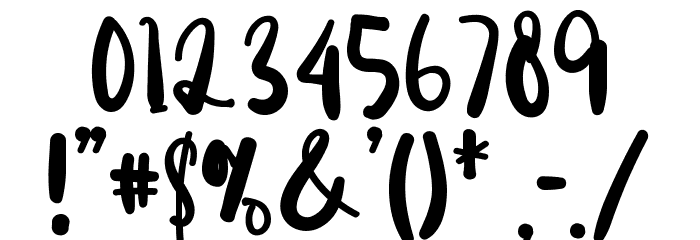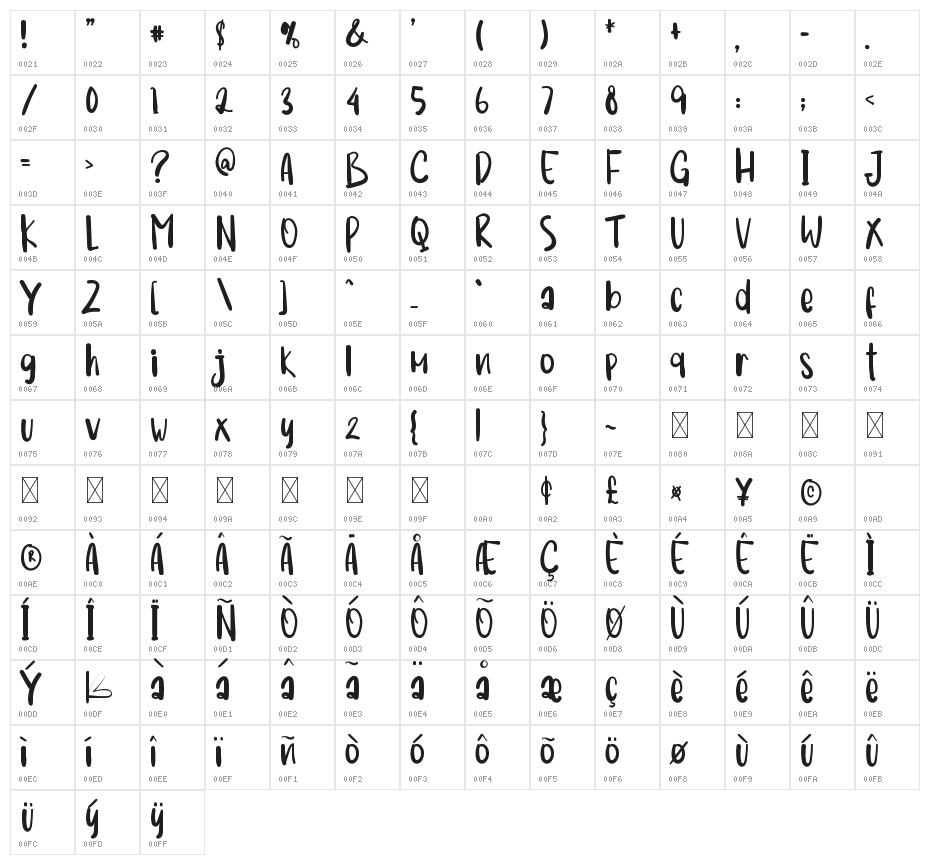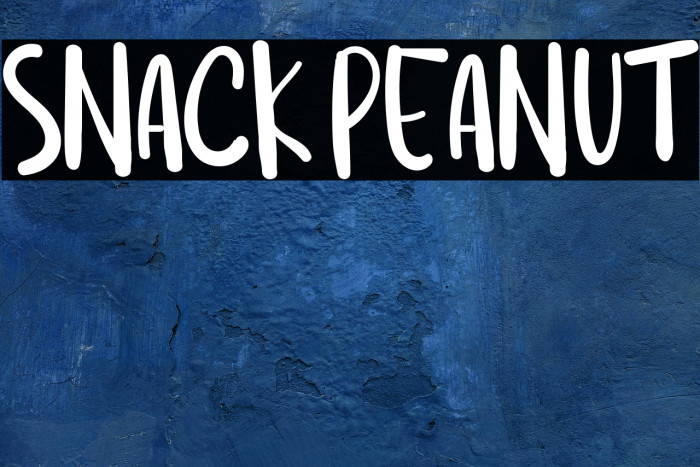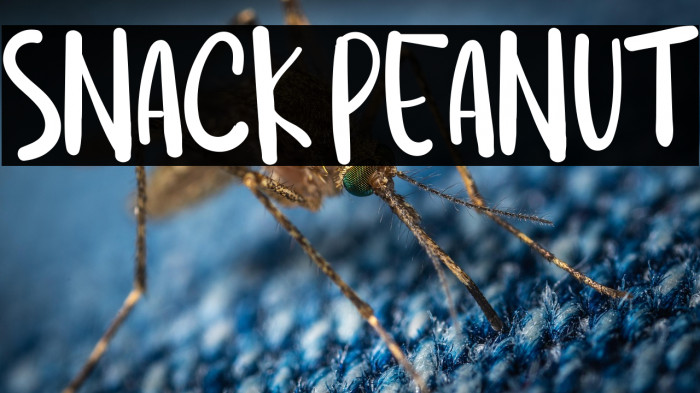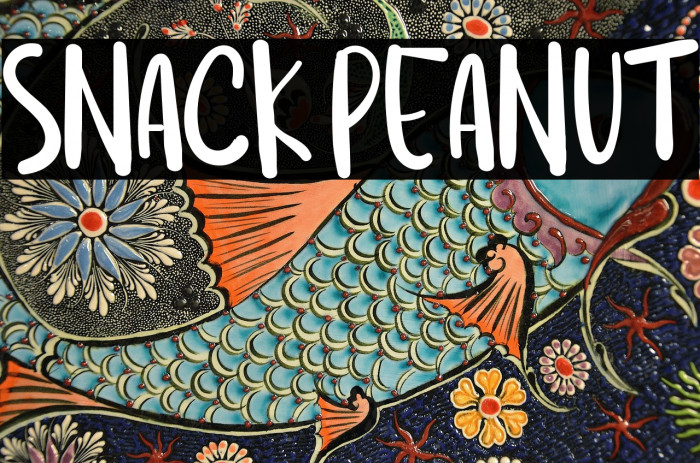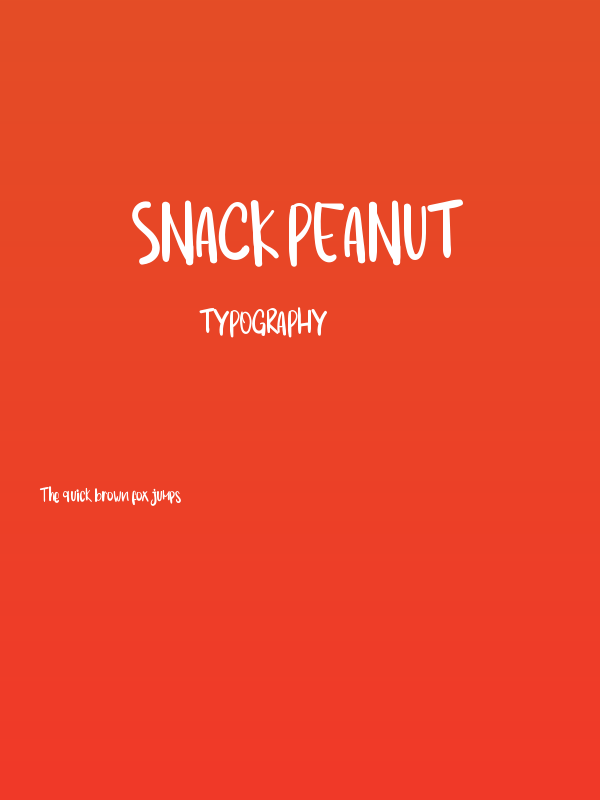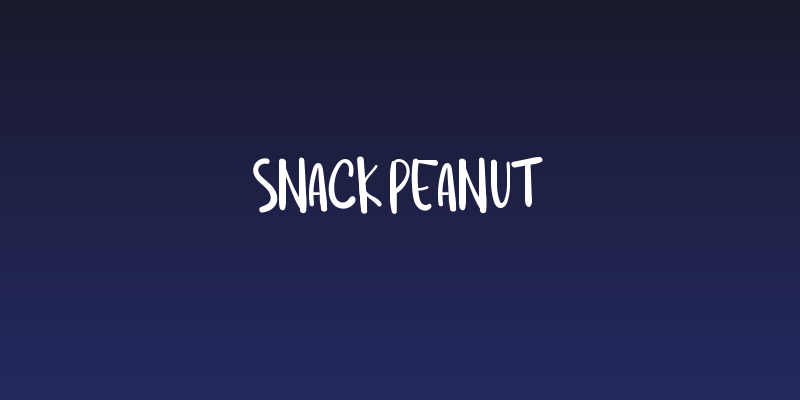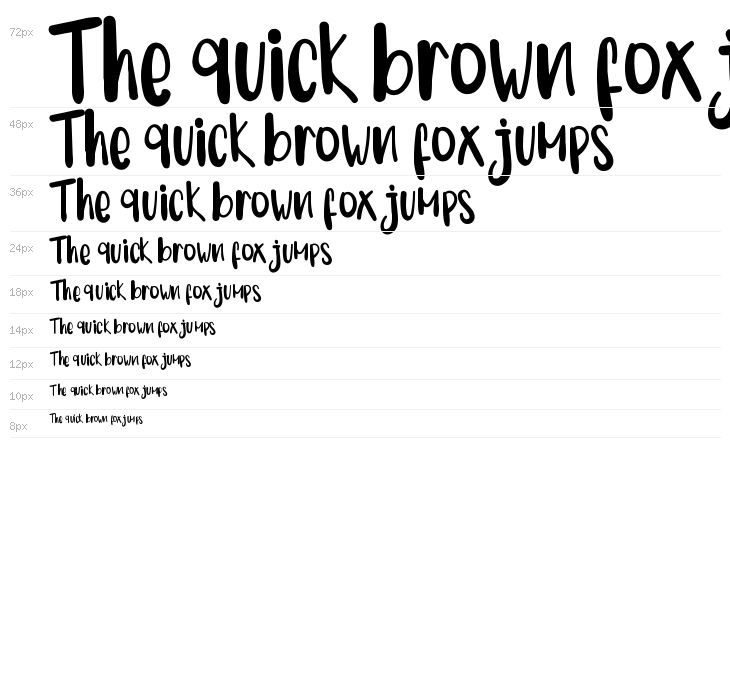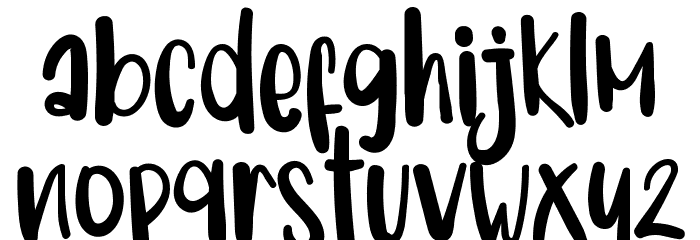
SNACK PEANUT Font
SNACK PEANUT Description
This playful and bold font features a handwritten style with a casual and friendly appearance. The letters are slightly irregular, adding a whimsical touch to the overall design. The uppercase and lowercase characters are well-balanced, with a consistent stroke width that gives the font a cohesive look. The numbers and special characters maintain the same playful aesthetic, making it versatile for various uses. The font's informal style makes it suitable for projects that aim to convey a sense of fun and approachability.
| Proposed Projects | Ideal for children's books, playful branding, greeting cards, and social media graphics. |